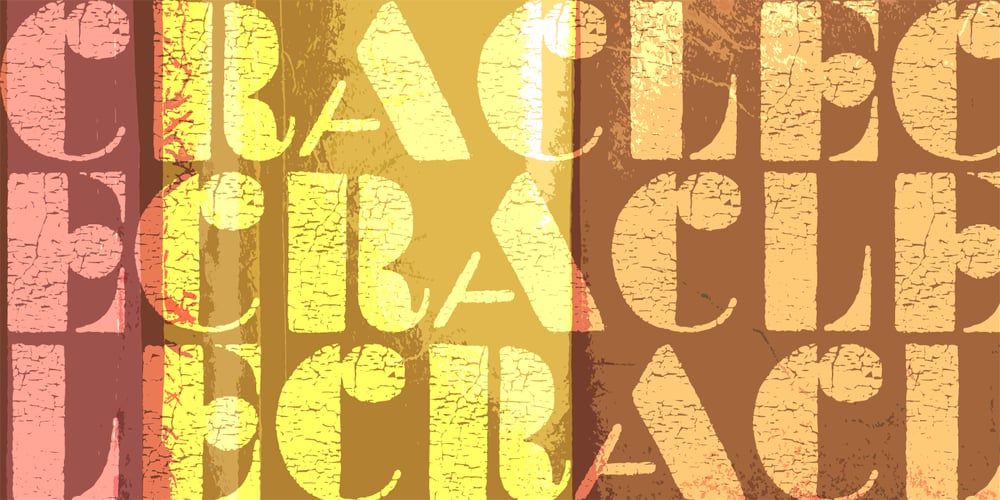
Crackle Font Family was designed by published by Klaudia Krynicka. Crackle contains 2 styles and family package options. To design this font, Crackle, I was inspired by an advertisement in the polish weekly “Tygodnik Powszechny” from 1938. From a few letters I have created an entire typeface – uppercase characters – in crackled and uncrackled versions.